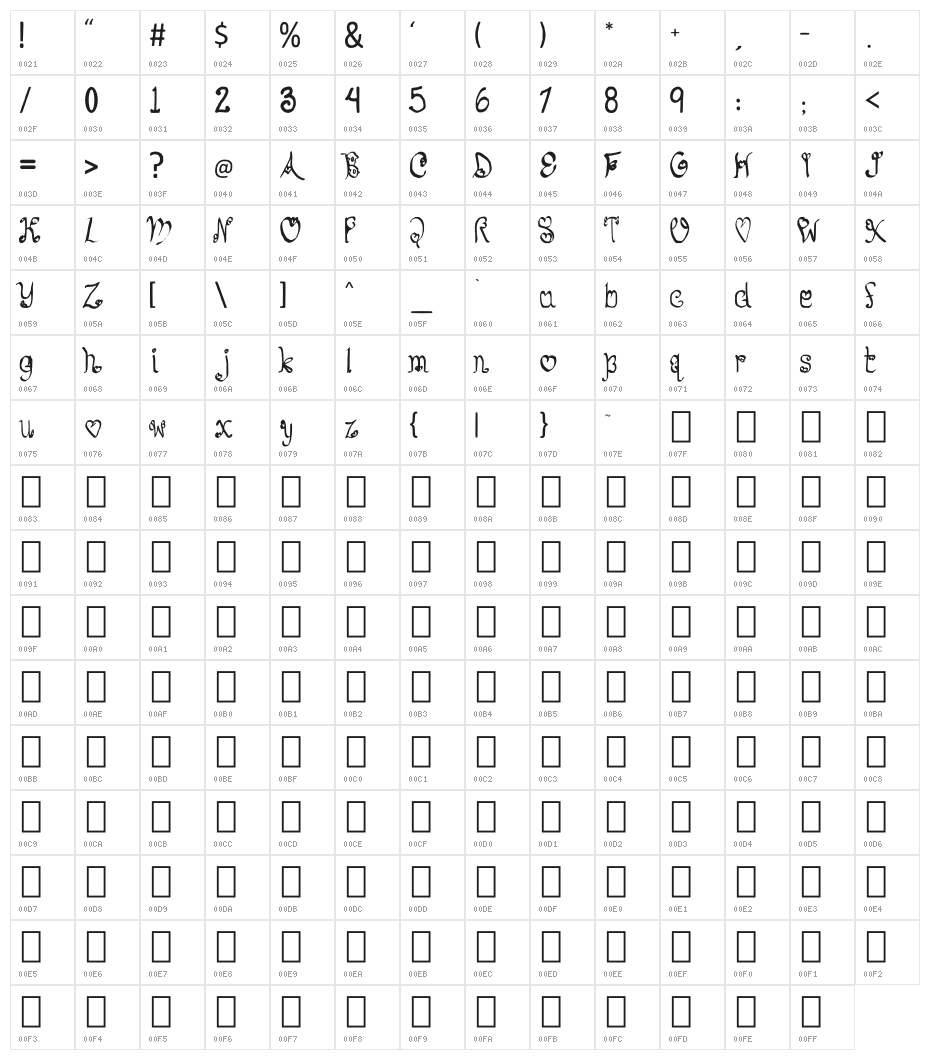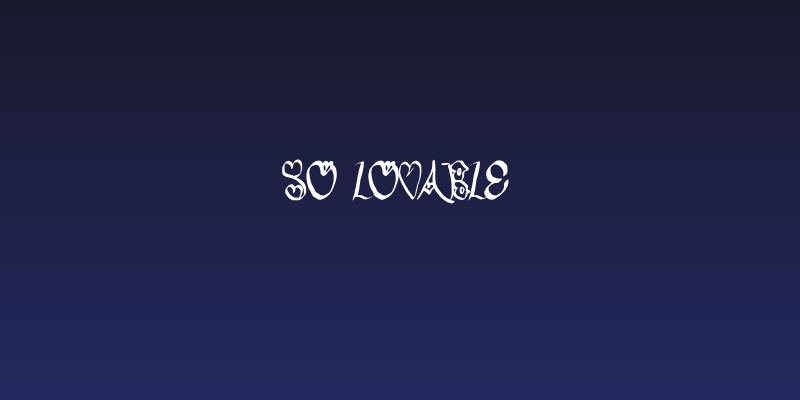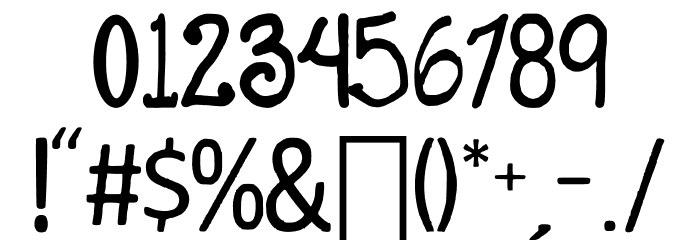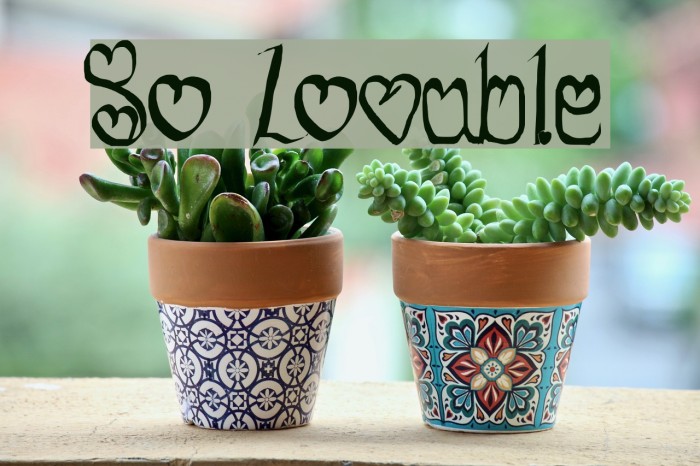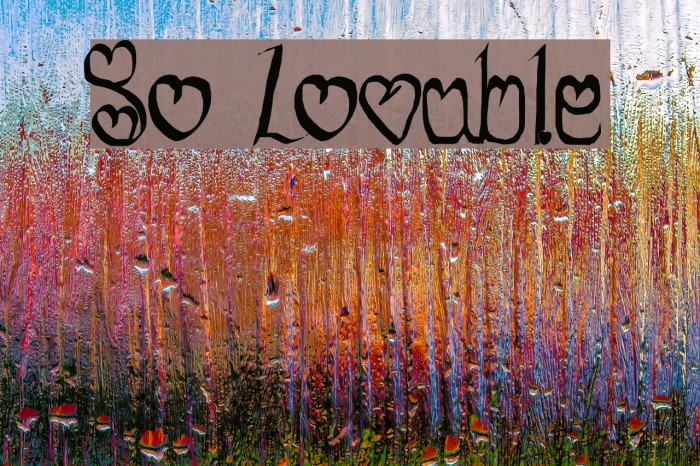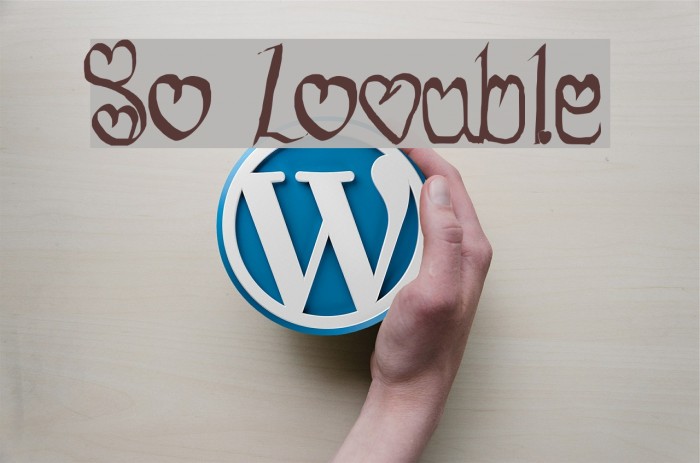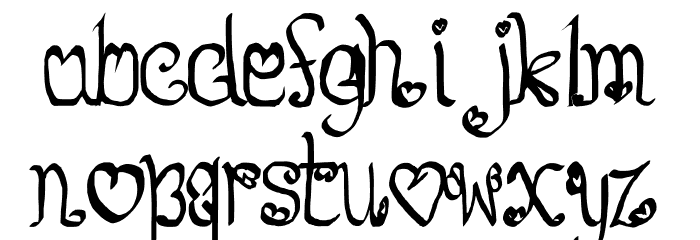
So Lovable Font
So Lovable Description
This font features a whimsical and playful design, characterized by its heart-shaped embellishments integrated into the letters. The uppercase and lowercase letters both exhibit a unique, decorative style, with curves and loops that add a sense of fun and creativity. The numbers and special characters maintain this playful theme, making the font ideal for projects that require a touch of romance or charm. Its distinctiveness makes it stand out, while the consistent use of heart motifs ties the entire set together harmoniously.
| Proposed Projects | Ideal for Valentine's Day cards, wedding invitations, playful branding, and children's book covers. |